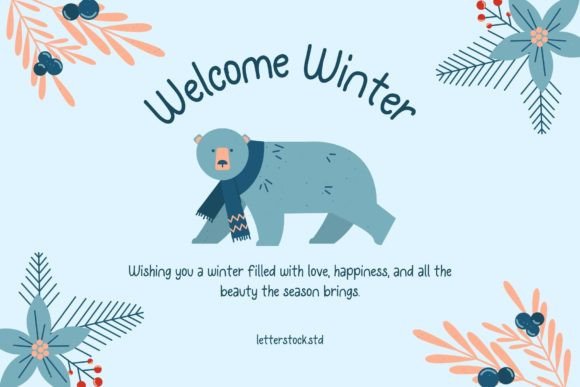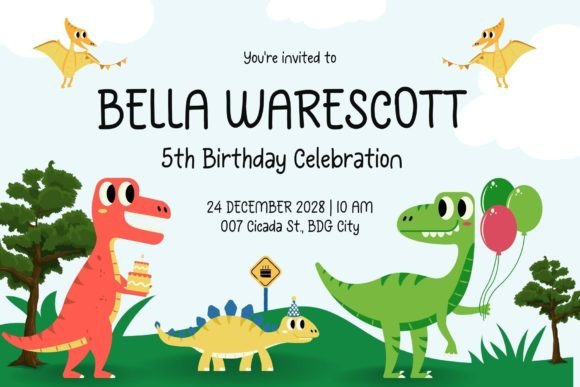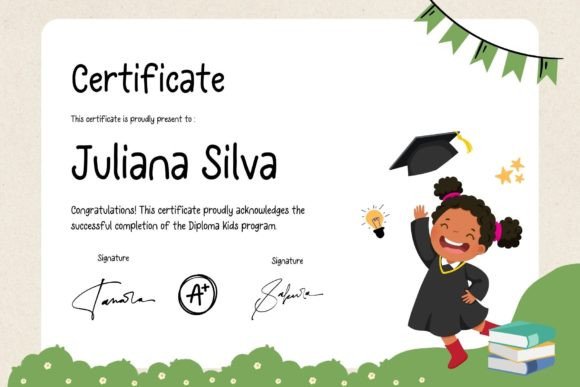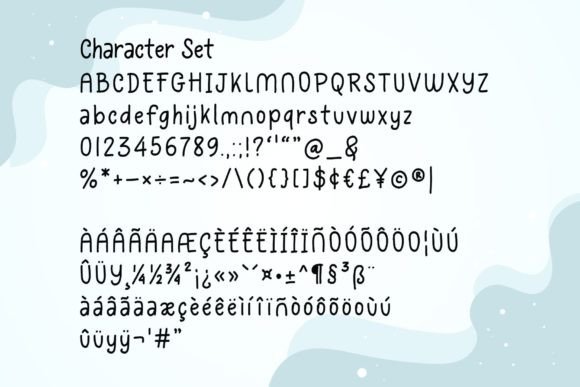
Bellaware Font: Adding a Playful Touch to Your Designs
Step into a world of creativity with “Bellaware,” your go-to font for adding a playful touch to your designs. Crafted with originality and spontaneity in mind, this hand-writing font is ideal for posters, invitations, and logos that demand a playful and lively vibe. In this article, we’ll dive into the world of Bellaware Font, exploring its features, uses, and benefits for designers and crafters.
What is Bellaware Font?
Bellaware Font is a unique, hand-writing font designed to bring a touch of playfulness and creativity to your designs. Its original and spontaneous style makes it perfect for projects that require a lively and youthful feel. Whether you’re working on a poster, invitation, or logo, Bellaware Font is sure to add a dash of personality and whimsy to your work.
Key Features of Bellaware Font
- Hand-written style: Bellaware Font boasts a genuine, hand-written look that’s perfect for creating a personal and playful feel.
- Original and spontaneous: The font’s unique and spontaneous style ensures that your designs stand out from the crowd.
- Playful and lively: Bellaware Font is designed to add a touch of playfulness and energy to your designs, making it ideal for projects that require a youthful vibe.
- Versatile: This font is suitable for a wide range of design projects, including posters, invitations, logos, and more.
Uses of Bellaware Font
Bellaware Font is a versatile font that can be used in various design projects, including:
- Posters: Add a playful touch to your posters with Bellaware Font, making them perfect for advertising events, promotions, or products.
- Invitations: Create personalized and playful invitations for parties, weddings, or other special occasions with Bellaware Font.
- Logos: Use Bellaware Font to create unique and memorable logos for your brand, product, or service.
- Social media graphics: Add a touch of personality to your social media graphics, such as Facebook posts, Instagram stories, or Twitter headers.
Benefits of Using Bellaware Font
Using Bellaware Font in your designs offers several benefits, including:
- Unique and creative look: Bellaware Font’s original and spontaneous style ensures that your designs stand out from the crowd.
- Easy to read: Despite its playful style, Bellaware Font is easy to read, making it perfect for body text or headings.
- Time-saving: With Bellaware Font, you can create professional-looking designs in no time, saving you time and effort.
- Customizable: Bellaware Font can be customized to fit your design needs, allowing you to adjust the size, color, and style to suit your project.
Tips for Using Bellaware Font
To get the most out of Bellaware Font, follow these tips:
- Use it sparingly: Bellaware Font is perfect for adding a touch of personality to your designs, but use it sparingly to avoid overwhelming your project.
- Experiment with colors: Bellaware Font looks great in a variety of colors, so experiment with different hues to find the perfect fit for your design.
- Pair it with other fonts: Bellaware Font can be paired with other fonts to create a unique and interesting contrast.
| Font Name | Bellaware Font |
| Author | Gumacreative |
In conclusion, Bellaware Font is a unique and versatile font that’s perfect for adding a playful touch to your designs. Its original and spontaneous style makes it ideal for posters, invitations, logos, and more. With its ease of use, customizability, and creative look, Bellaware Font is a must-have for designers and crafters looking to add a dash of personality to their work.